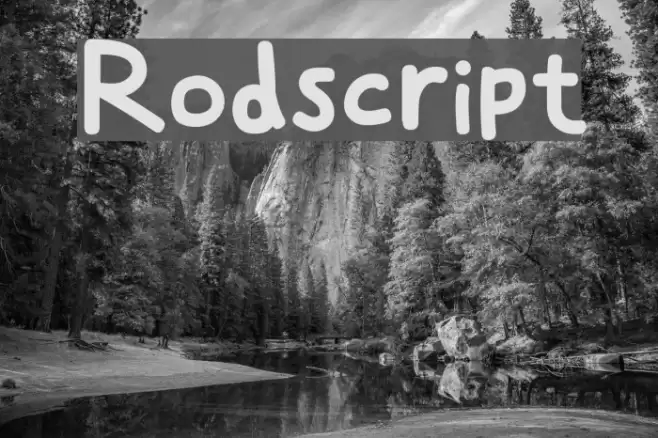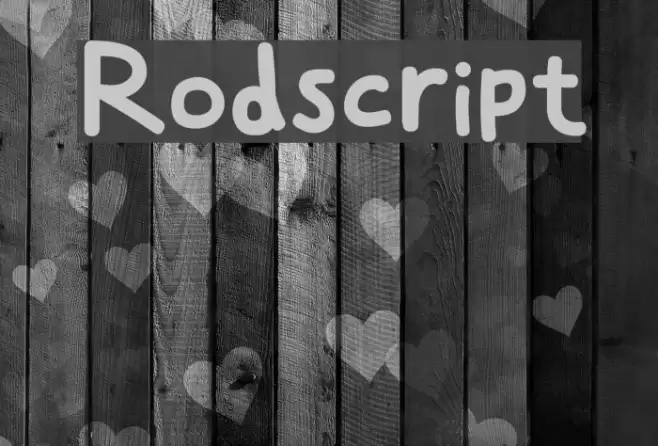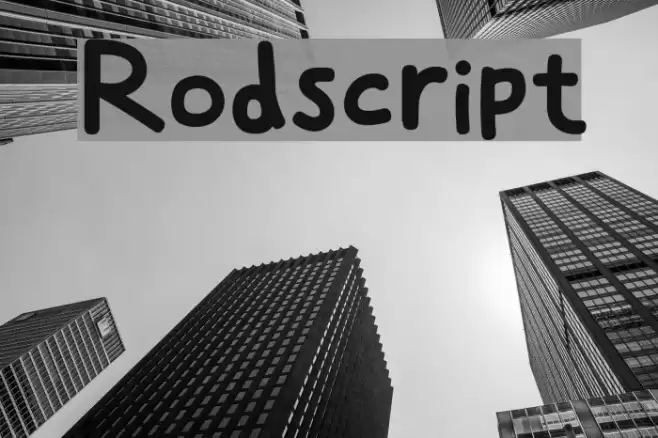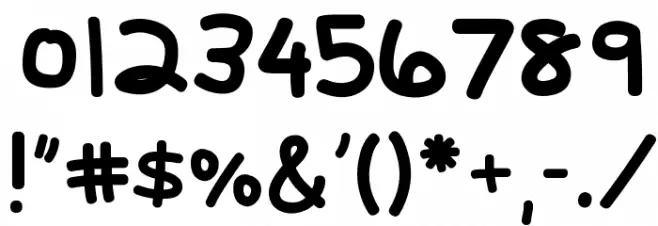
Rodscript Font
Rodscript Description
This font features a playful and rounded style, characterized by its bold and smooth strokes. The letters are evenly spaced, with a consistent thickness that gives it a friendly and approachable appearance. The uppercase and lowercase letters maintain a uniform height, contributing to its readability. The numerals and special characters are designed to match the overall aesthetic, making it versatile for various applications. Its simplicity and charm make it suitable for informal and creative projects, where a touch of whimsy is desired.
A playful, rounded font with bold, smooth strokes and uniform spacing from Uncategorized fonts.
- Proposed Projects: Ideal for children's books, playful branding, casual invitations, and creative posters.
- Overall Style: Playful
- Use Case: Headlines, Logos, Informal Text